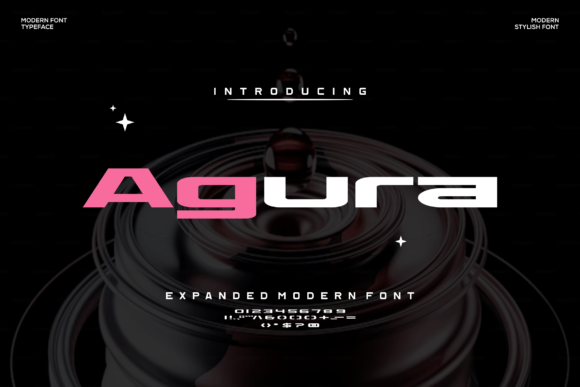
Introducing Agura Font: The Modern Display Font You Need
Have you ever been in the middle of a design project, and suddenly, you’re stuck on finding the perfect font? I recall a recent experience where I was working on a branding project for a trendy coffee shop. The client wanted a bold, yet authentic look that would stand out on their merchandise and advertising materials. After scouring through countless font libraries, I stumbled upon **Agura Font**, a modern display font that exceeded my expectations.
First Impressions: What I Love About Agura Font
Here’s what makes Agura Font a standout in my book:
- ✨ Bold and Authentic: Agura Font has a unique, eye-catching quality that adds a touch of sophistication to any design.
- ✅ Versatile: Whether you’re working on logos, t-shirt printing, or creative products, Agura Font adapts seamlessly to various contexts.
- 💡 OpenType Features: This font comes with a range of OpenType features, including glyphs and stylistic alternates, giving you plenty of creative freedom.
A Few Quirks to Keep in Mind
While Agura Font is an excellent choice, there are a few minor limitations to consider:
- 🤔 Limited Use on Small Text: Due to its bold nature, Agura Font might not be the best choice for small text sizes or body text.
- ⚠️ Glyph Compatibility: Some glyphs might not work seamlessly with older software or browsers, so it’s essential to test compatibility before finalizing your design.
The Story Behind Agura Font
Agura Font was designed with the goal of creating a bold, yet authentic display font that would meet the needs of modern designers. Inspired by the urban landscape and contemporary art, Agura Font’s creator aimed to craft a font that would be both stylish and versatile.
| Font Name | Agura Font |
| Author | agusbolang1616 |
| What is Agura Font best used for? | Agura Font is perfect for branding projects, logos, t-shirt printing, and creative products. |
| Is Agura Font suitable for body text? | Due to its bold nature, Agura Font is not recommended for body text or small font sizes. |
| Does Agura Font come with OpenType features? | Yes, Agura Font includes a range of OpenType features, glyphs, and stylistic alternates. |